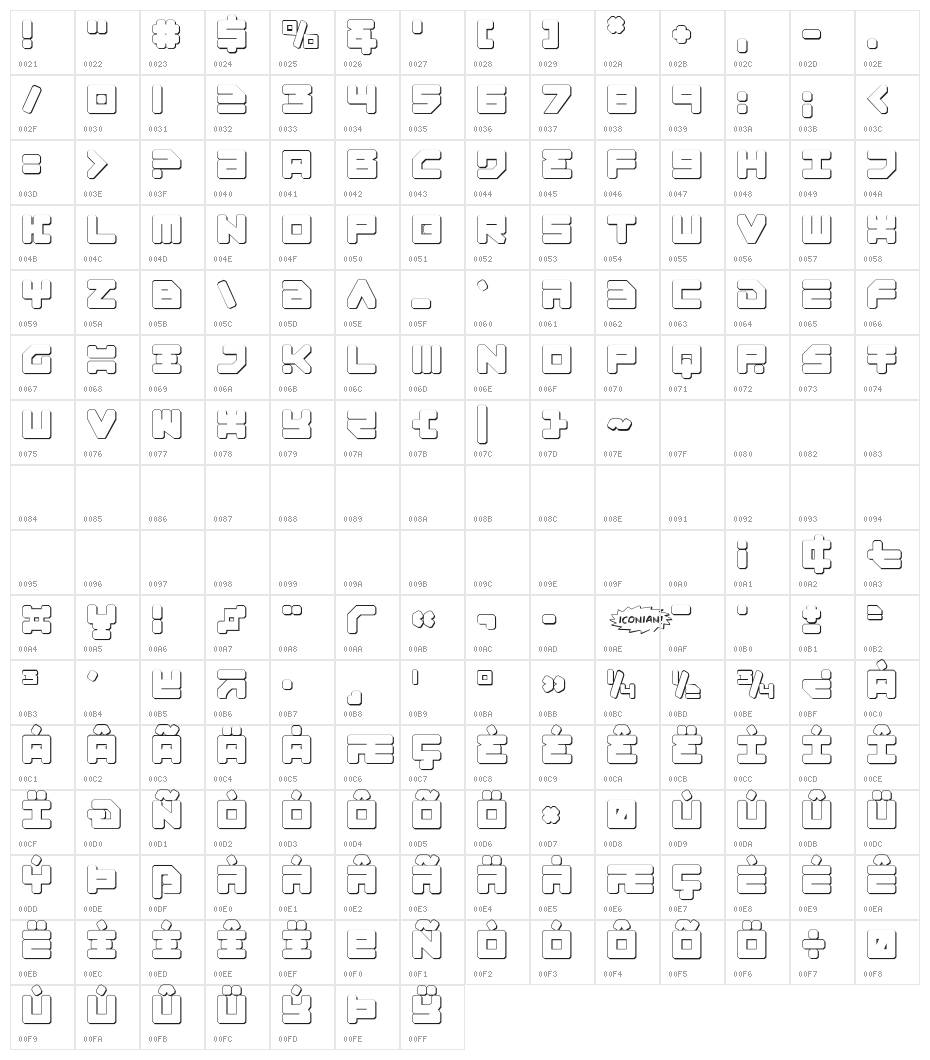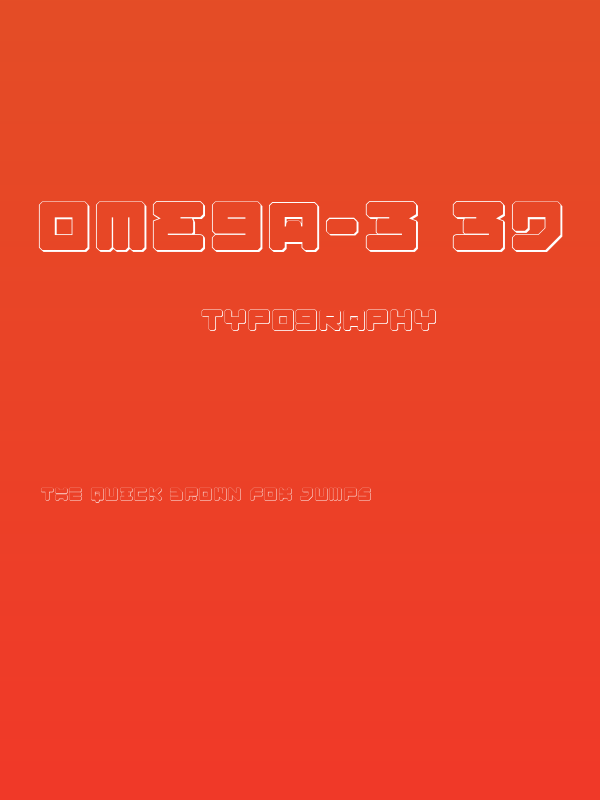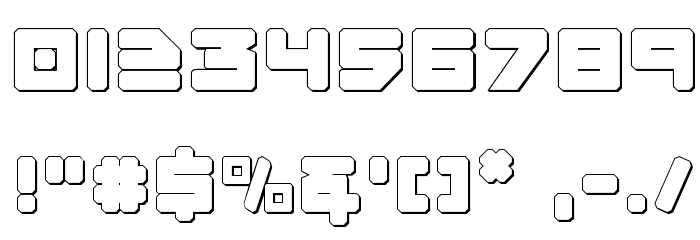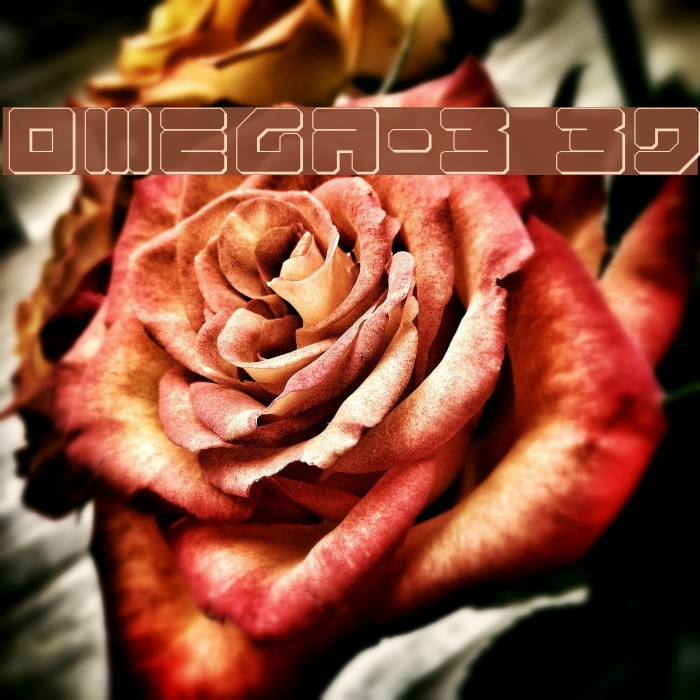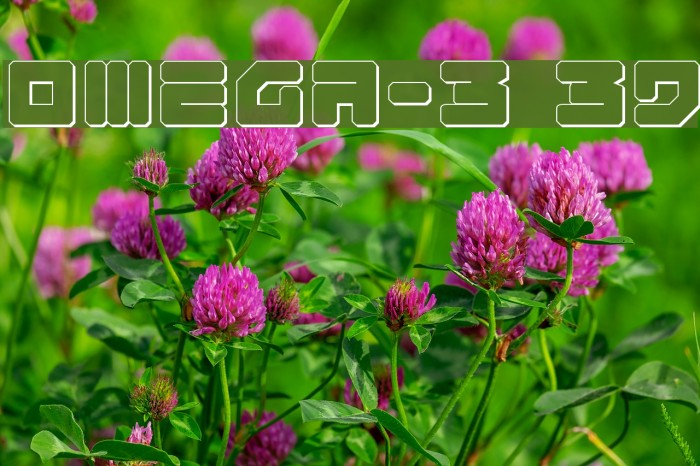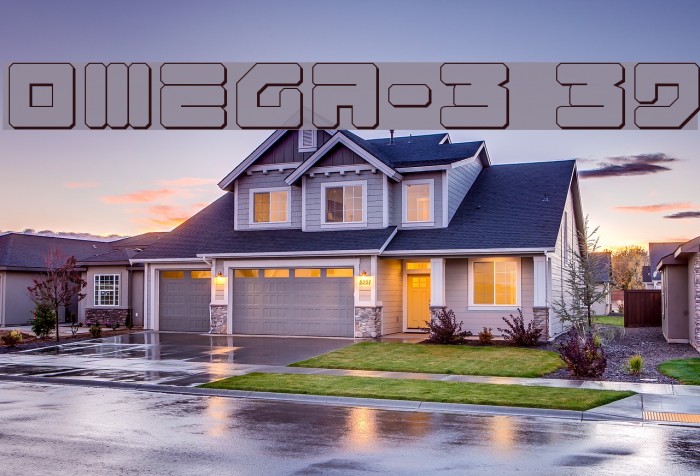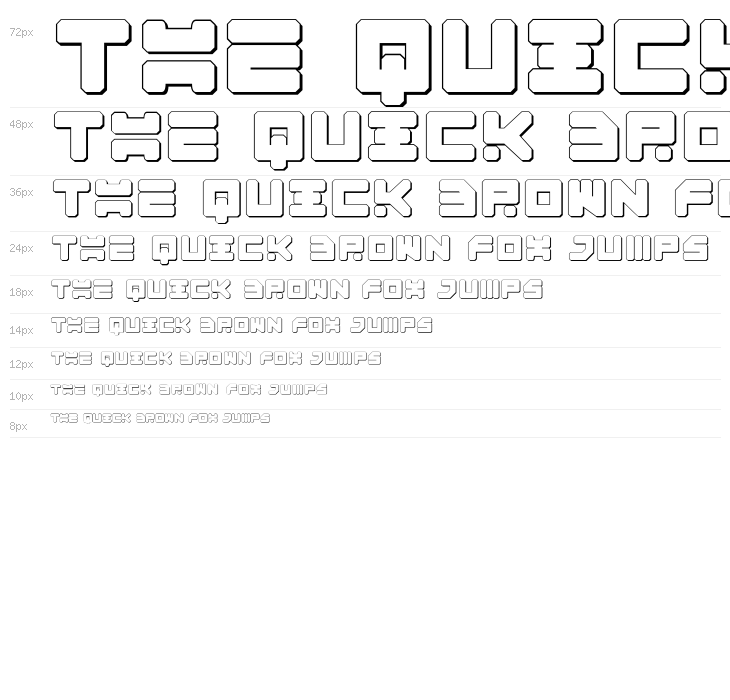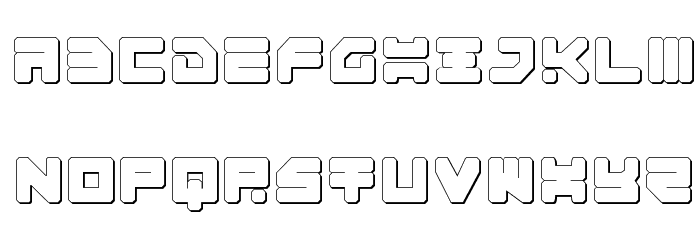
Omega-3 3D Font
Omega-3 3D Description
This font features a bold, three-dimensional design with a futuristic and geometric aesthetic. The characters are outlined, giving them a hollow appearance that enhances the 3D effect. Each letter and number is constructed with straight lines and sharp angles, creating a sense of depth and structure. The font maintains a consistent stroke width throughout, which contributes to its modern and clean look. The special characters are designed to match the overall style, ensuring a cohesive appearance across all glyphs. This font is ideal for projects that require a strong visual impact and a contemporary feel.